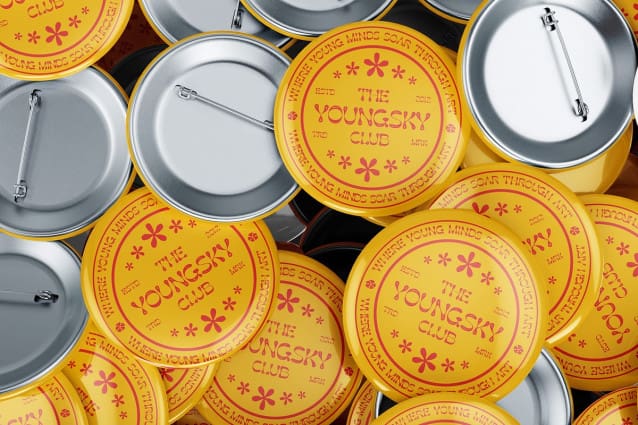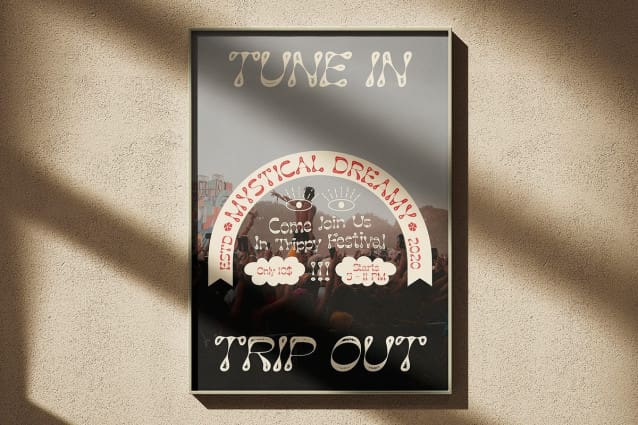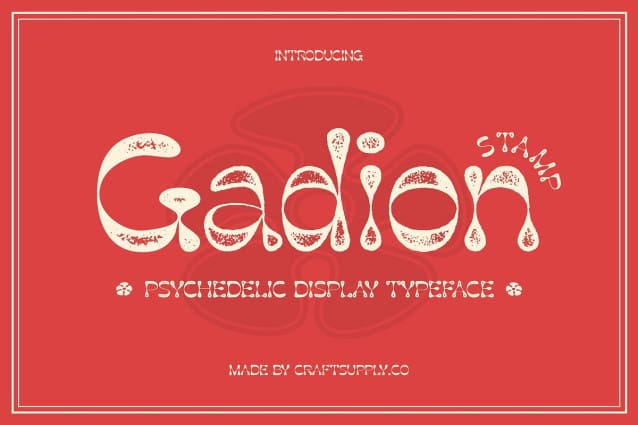
Gadion Stamp Font
Gadion Stamp Font is a vibrant, psychedelic display font that bursts with playful energy and creative flair. Its wavy, unconventional shapes give it a dynamic, flowing appearance, making it perfect for designs that need a touch of bold imagination. The stamp effect adds a rough, textured finish, enhancing its funky, carefree vibe, which makes this font ideal for youthful, energetic projects.
Ideal for Youthful, Creative Designs This font is a standout choice for designs aiming to convey freedom, fun, and creativity. Whether you’re designing event posters, music album covers, or promotional materials for a trendy audience, Gadion Stamp adds an element of joy and excitement. Its unique, distorted forms create a sense of movement, bringing any project to life with a sense of spontaneity and playful charm.
Perfect for Music, Events, and Trendy Branding Gadion Stamp is perfect for event promotions, music graphics, and branding aimed at a young, creative crowd. Its rough edges and stamp-like texture make it feel authentic and handcrafted, giving your designs a raw, artistic edge that stands out. Whether you’re aiming for retro vibes or modern funky aesthetics, this font brings a fresh, bold look to any project.